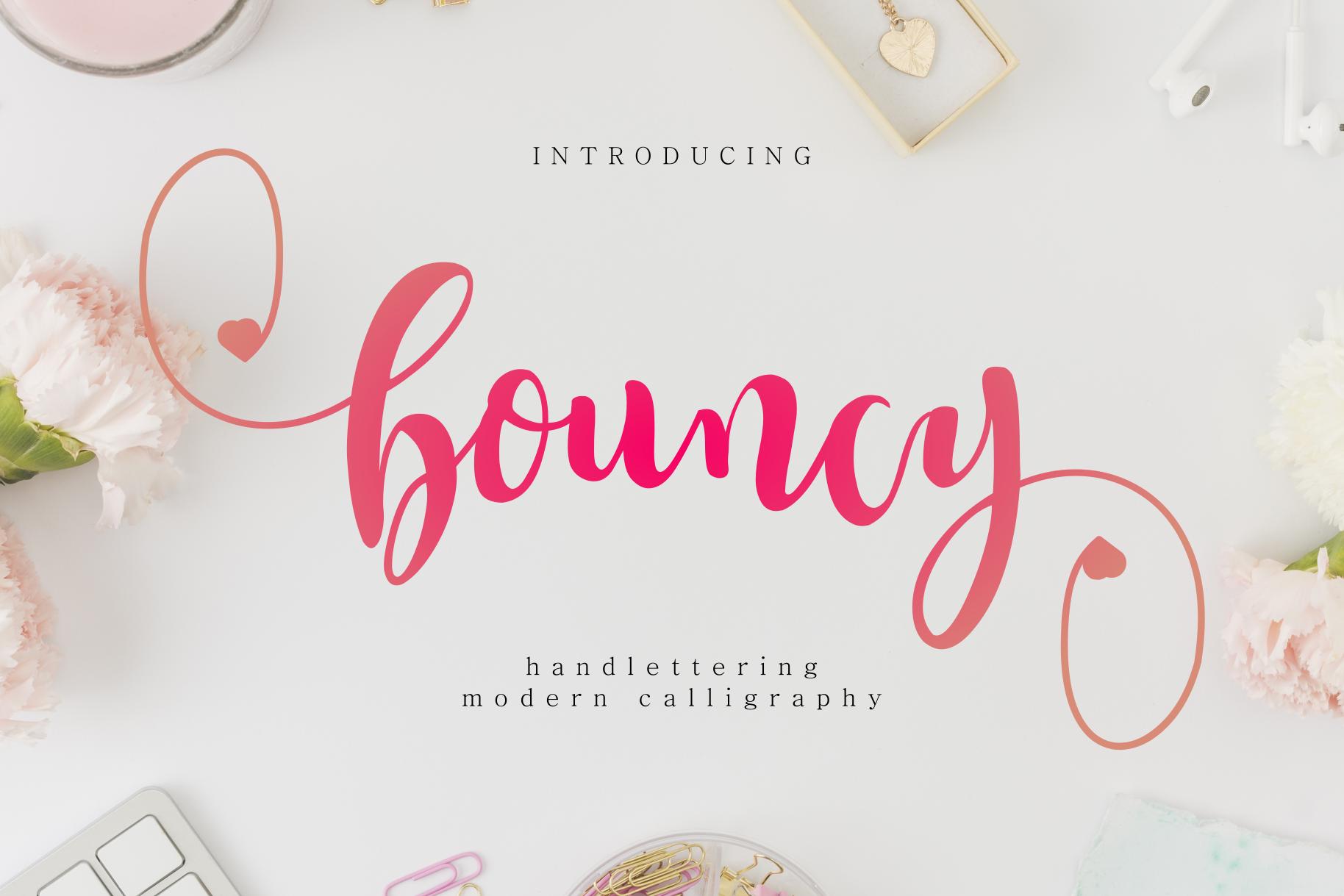
Bouncy Font Description
Bouncy is a romantic and joyful handwritten font, masterfully designed to become one of your top choices. It maintains its classy calligraphic influences while feeling contemporary and fresh. Fall in love with it and bring your projects to the highest levels!